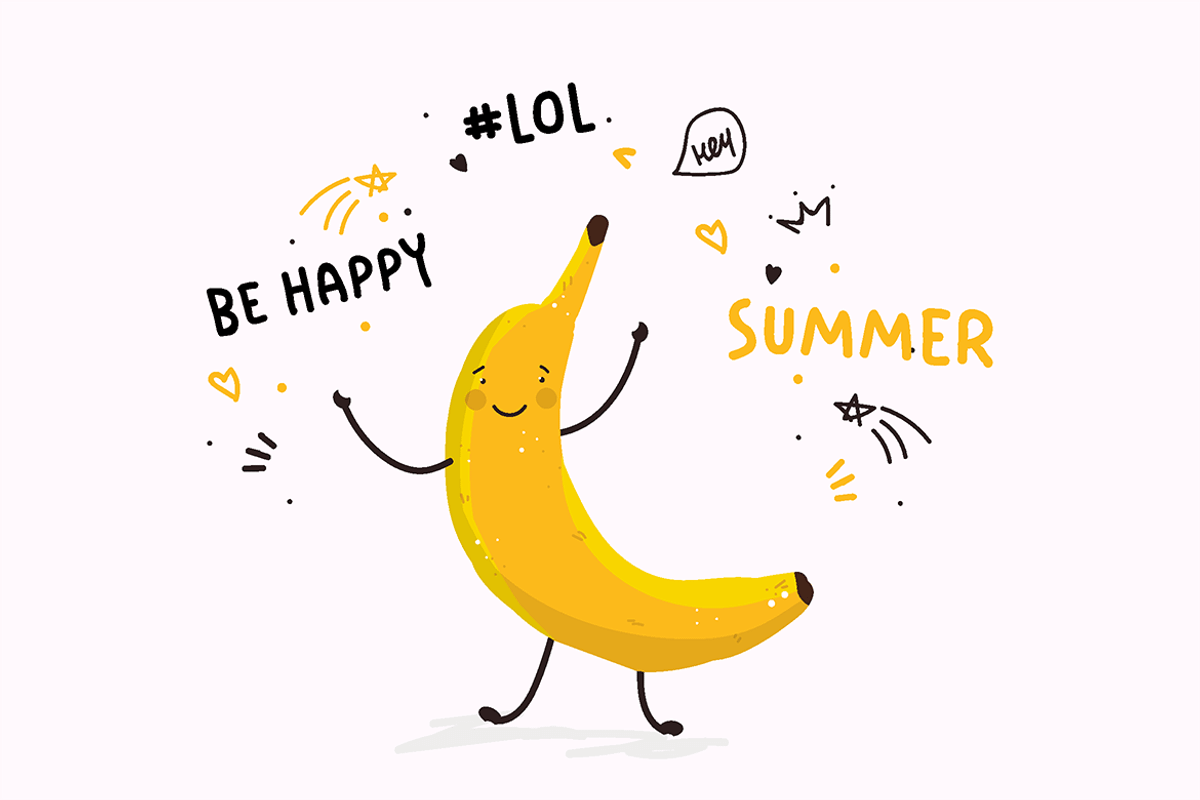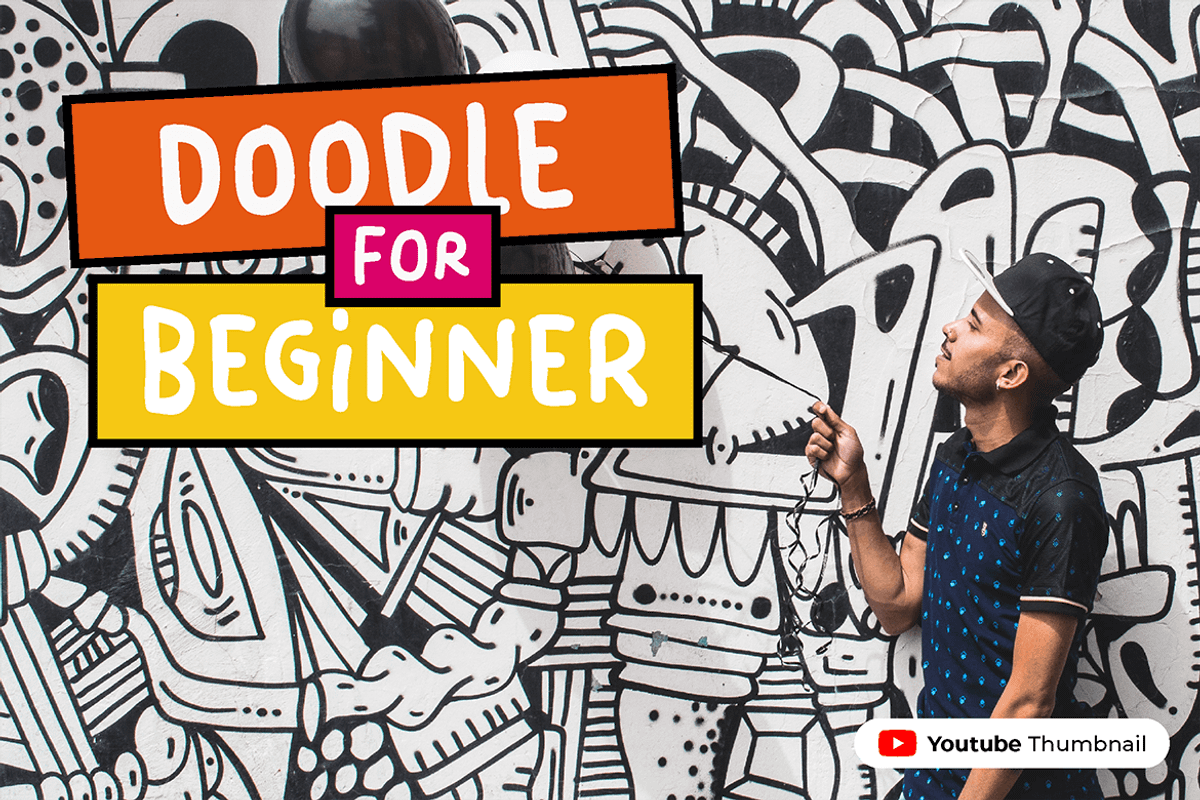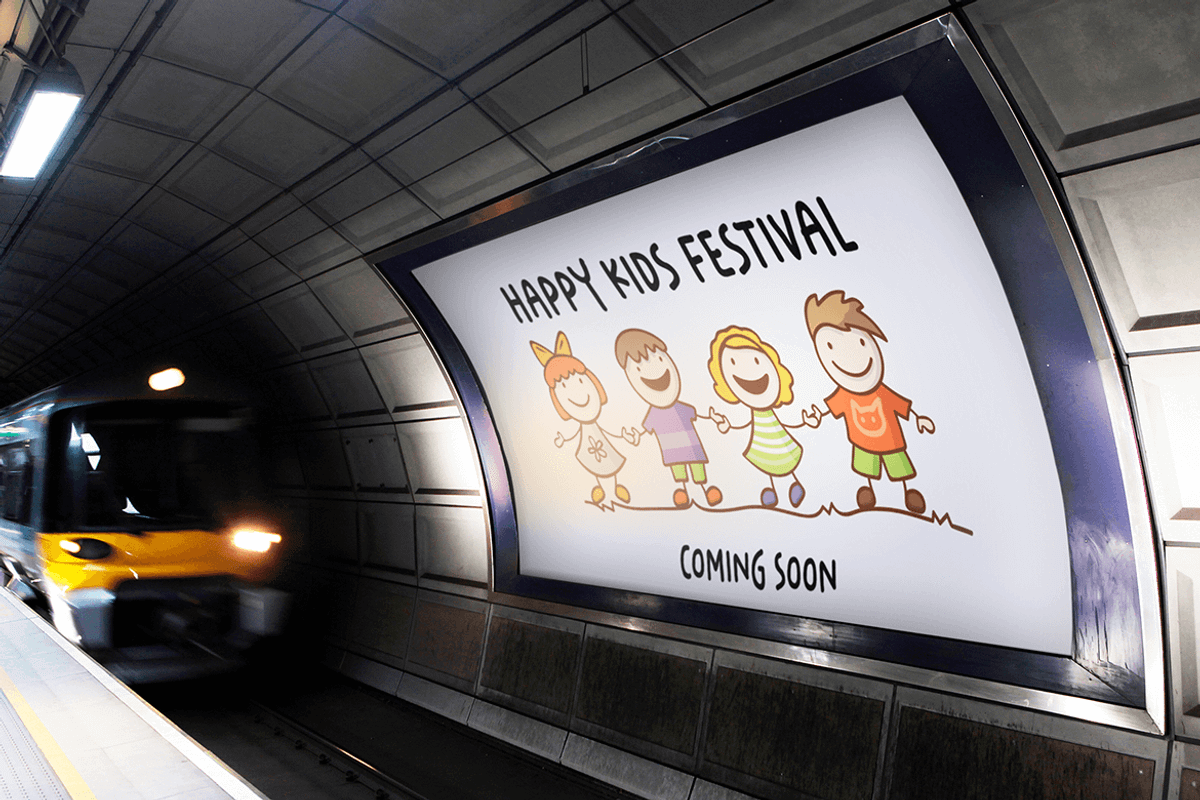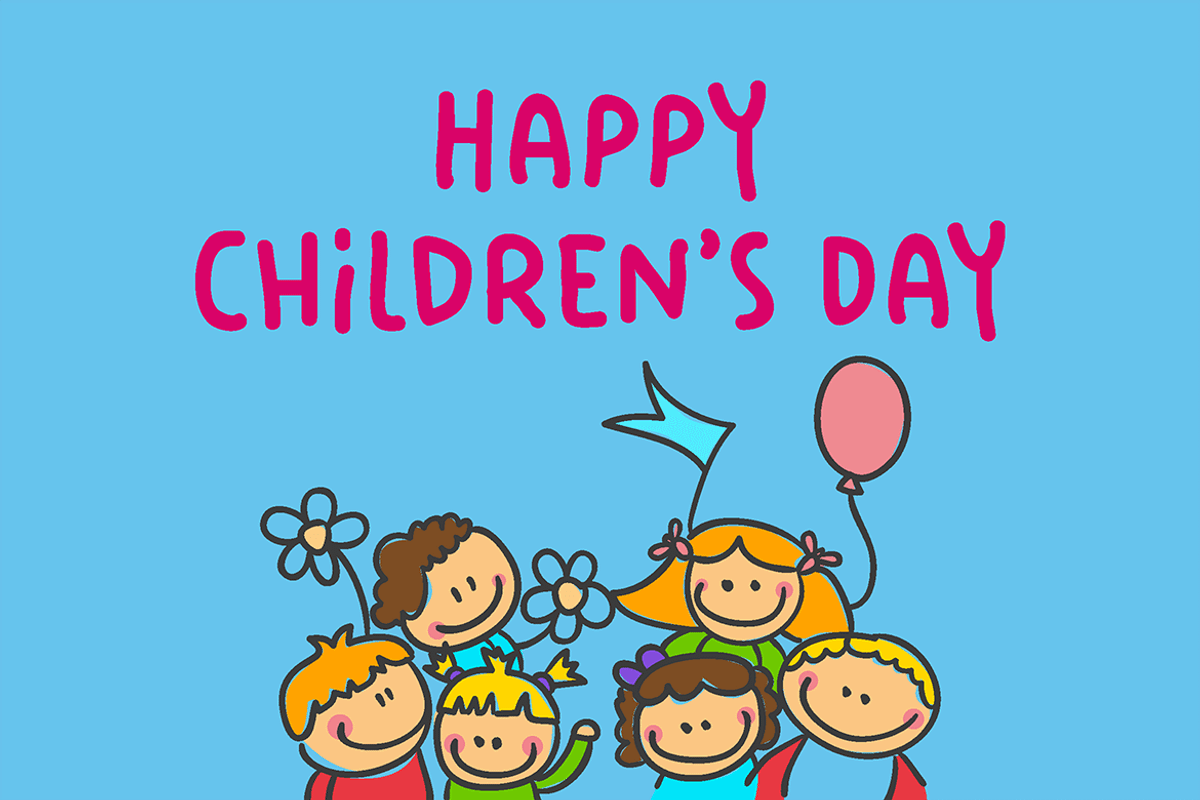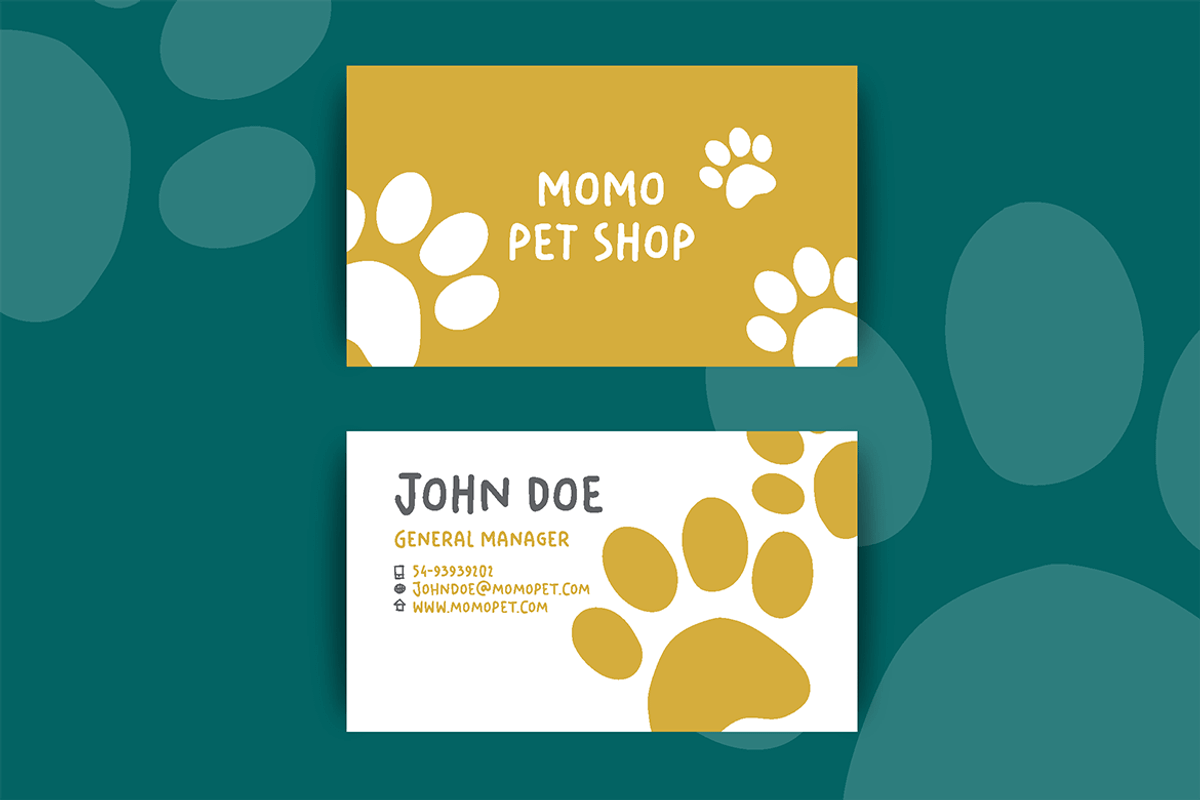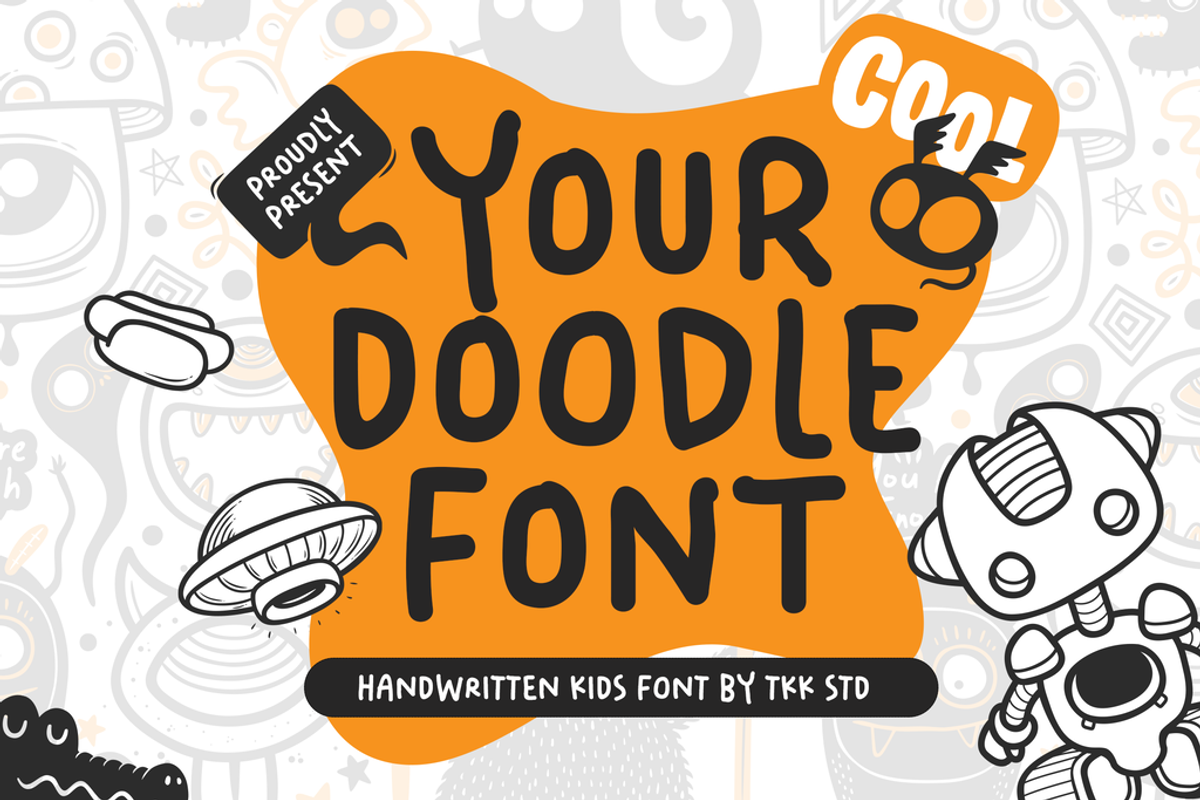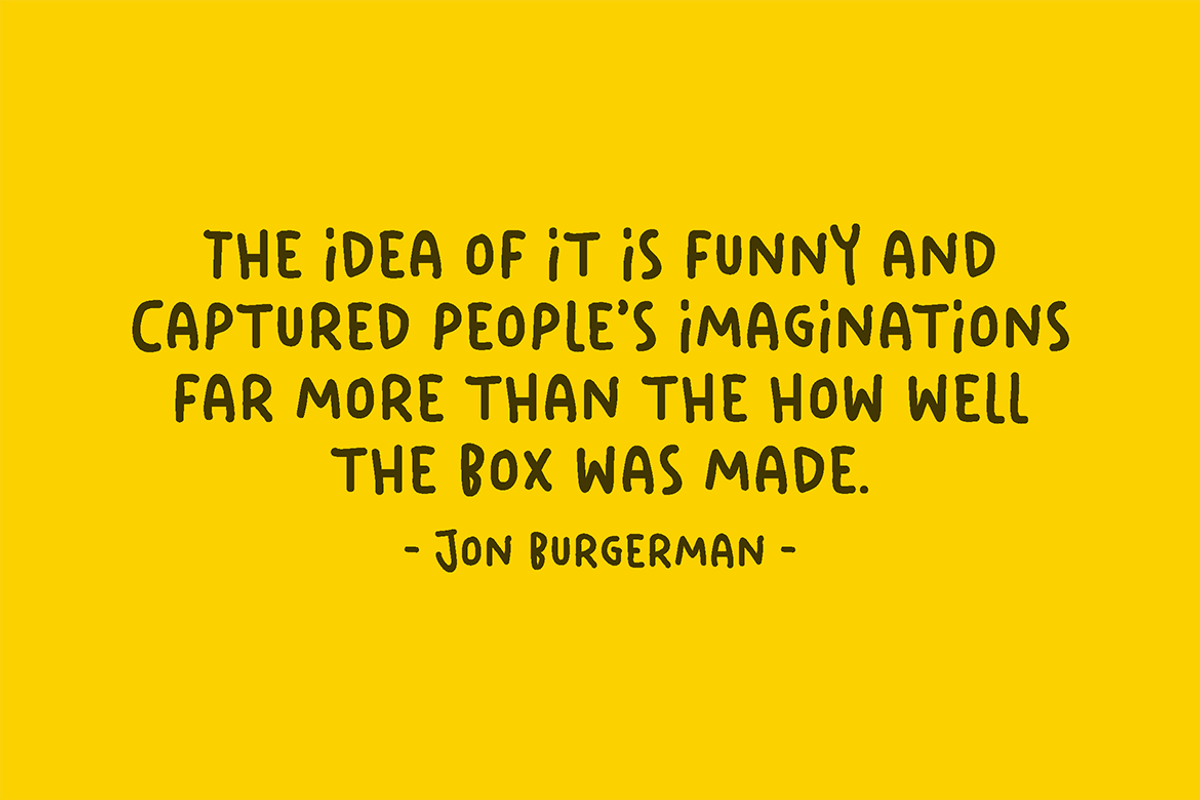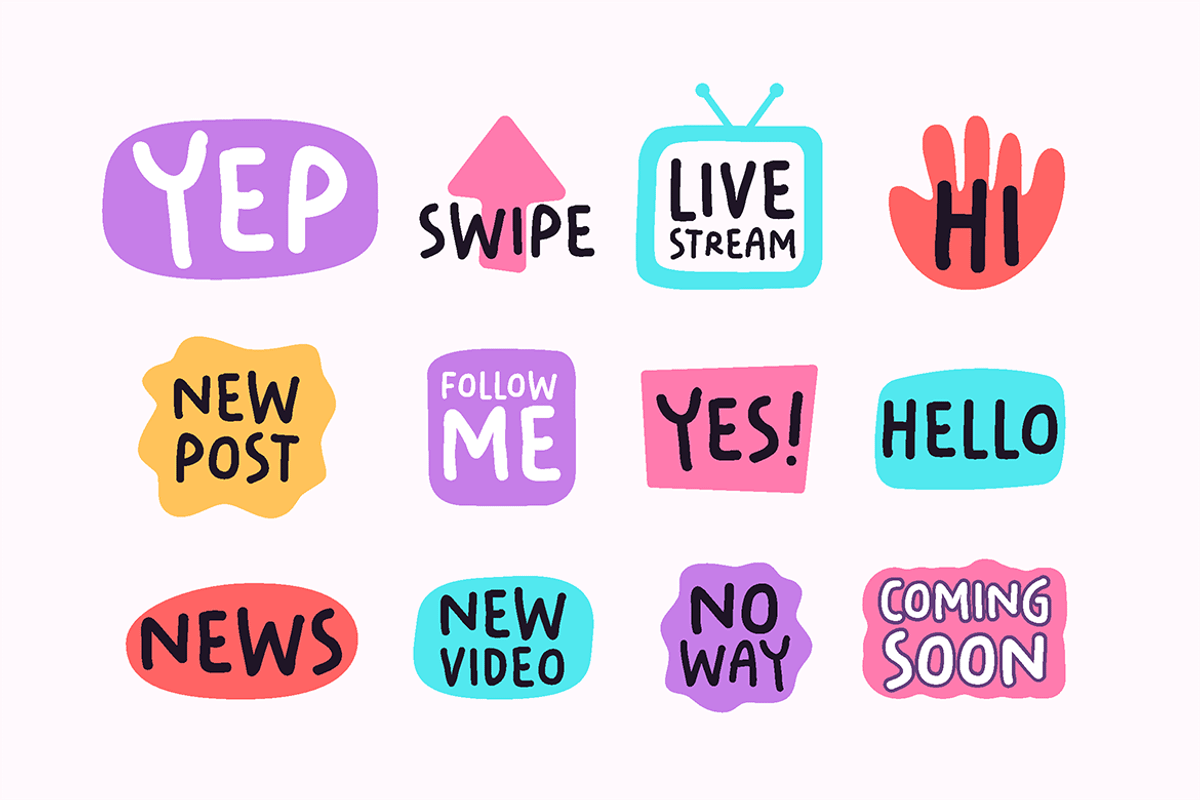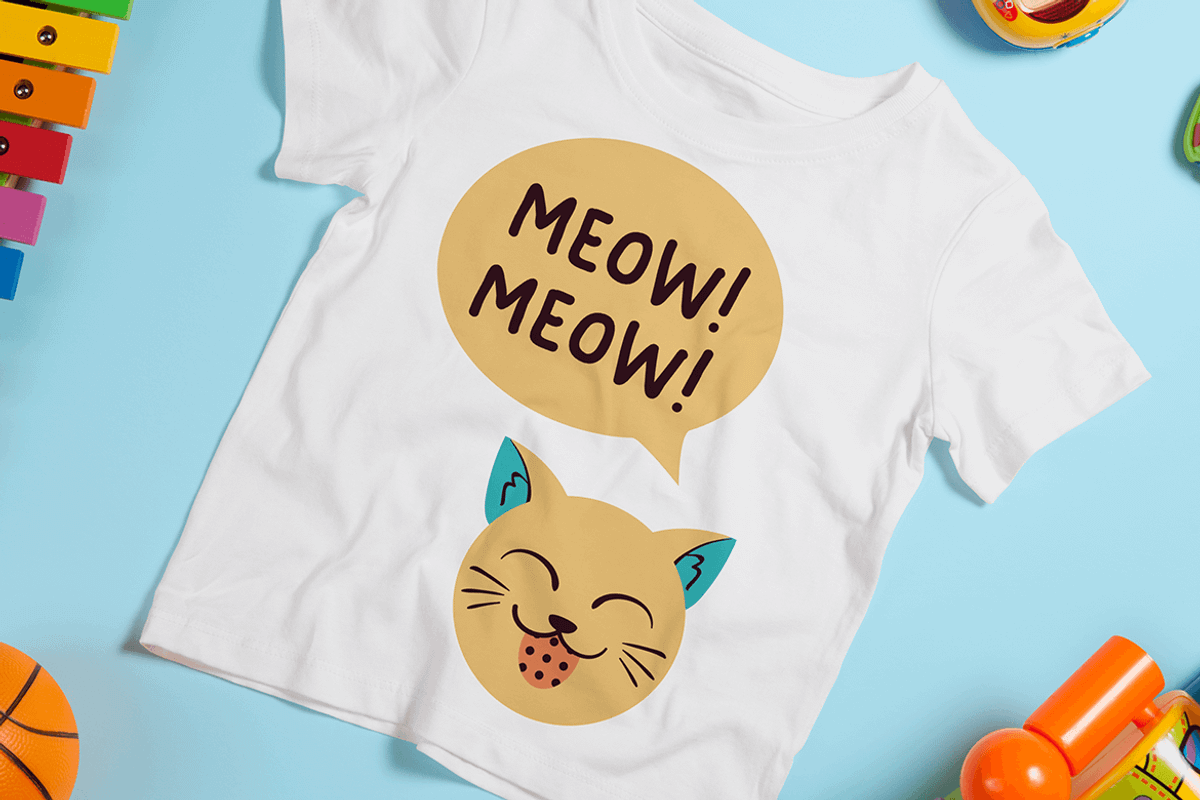
Your Doodle Font - Cute Font
Your Doodle Font cute font was intended to be your go-to doodle font. Whenever you put a doodle drawing, you must be in desperate need to find a font that emphasizes and complement your imperfect drawing. Putting a perfect shape sans and serif font along with your doodle is a big NO. Hence, we’ve come up with this perfect solution.
Suit perfectly for your doodle illustration font, scribble book, children related projects, t-shirt for kids writing, food and beverage product commercial, a billboard, catchphrase stickers, youtube covers, youtube thumbnails, social media page covers and so on…